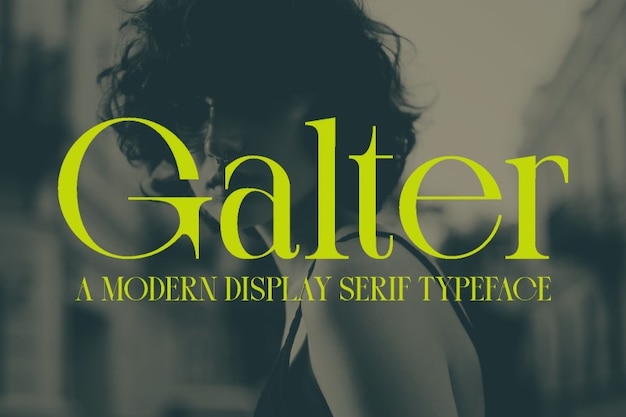
Galter Font
"Galter" is a refined font that masterfully balances thick and thin strokes, creating an elegant and sophisticated design. Its graceful curves and sleek lines make it perfect for upscale branding, invitations, or editorial layouts. "Galter" adds a touch of class and modernity to any project, making it ideal for designs that seek both boldness and elegance.